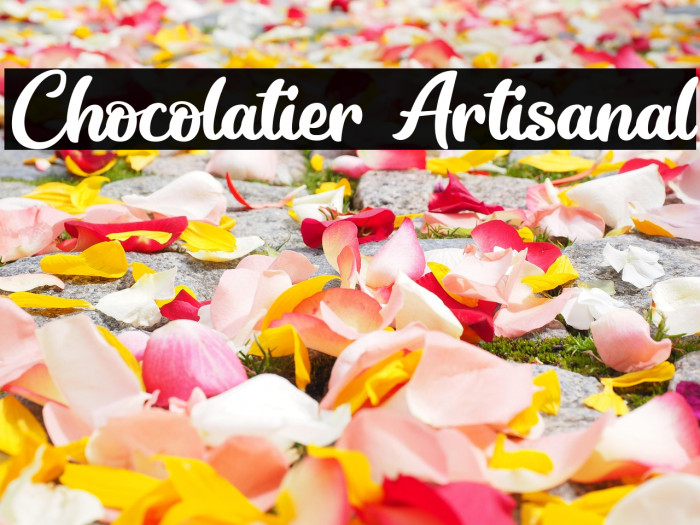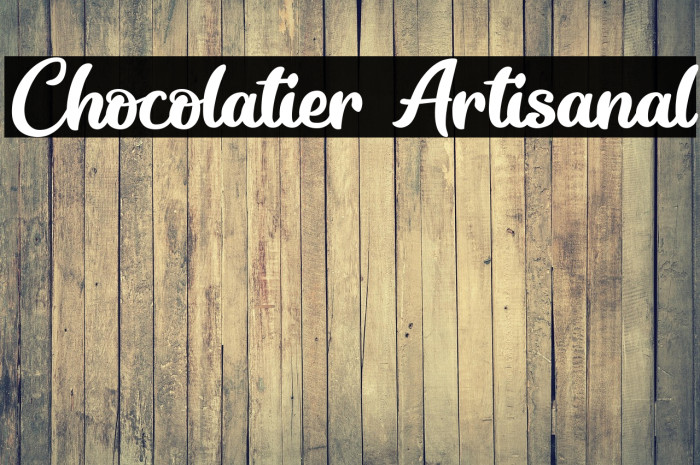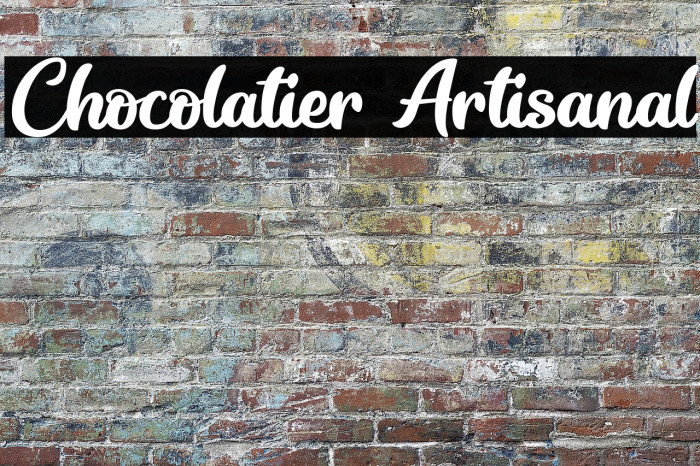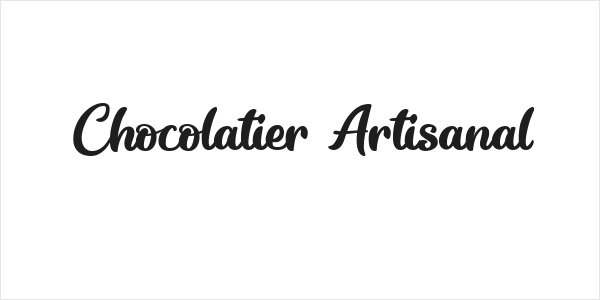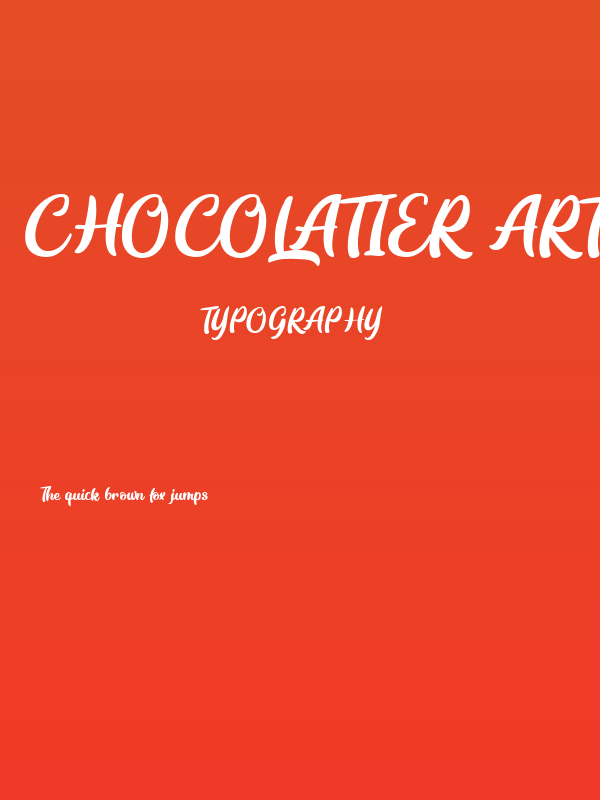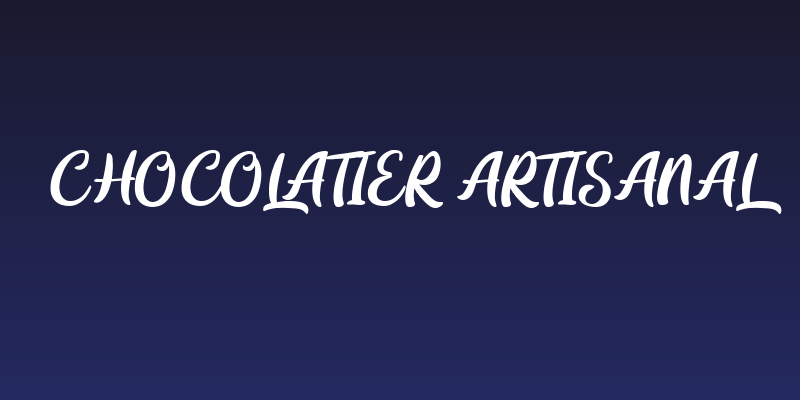
Chocolatier Artisanal Font
Chocolatier Artisanal Description
This font features a flowing, cursive style that exudes elegance and sophistication. The letters are interconnected, creating a seamless and continuous look that is both artistic and refined. The uppercase letters are bold and prominent, while the lowercase letters maintain a consistent flow with slightly rounded edges. The numerals are distinct and maintain the same fluidity, ensuring readability. Special characters are crafted with the same attention to detail, making them blend seamlessly with the rest of the typeface. This font is perfect for projects that require a touch of class and creativity, such as invitations, branding, and packaging.
| Proposed Projects | Ideal for wedding invitations, luxury branding, artisanal product packaging, and elegant signage. |